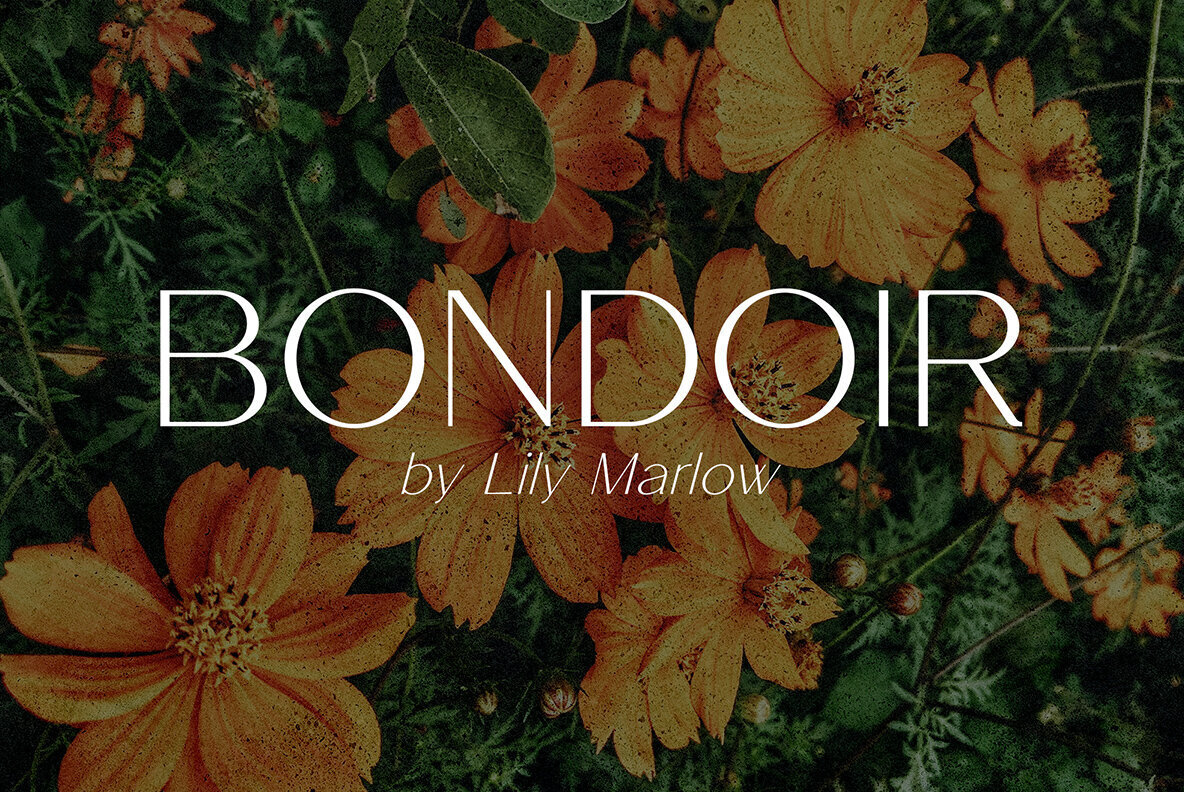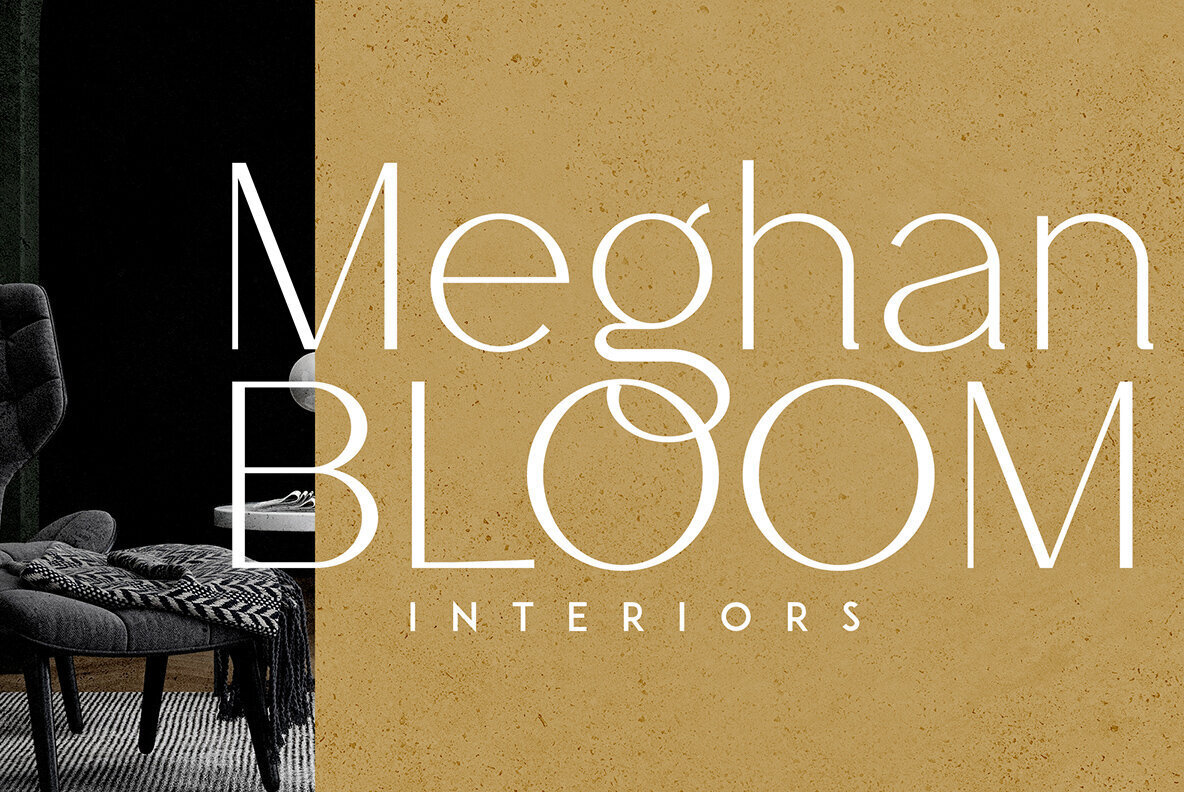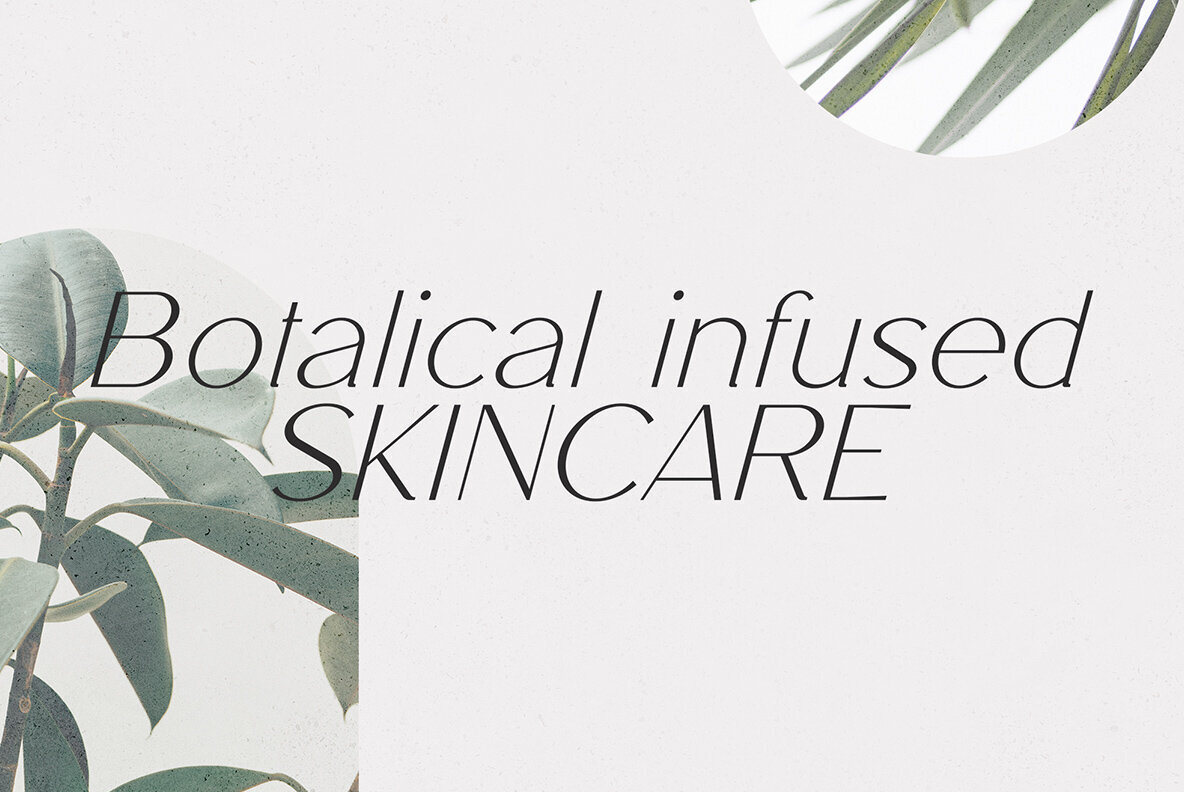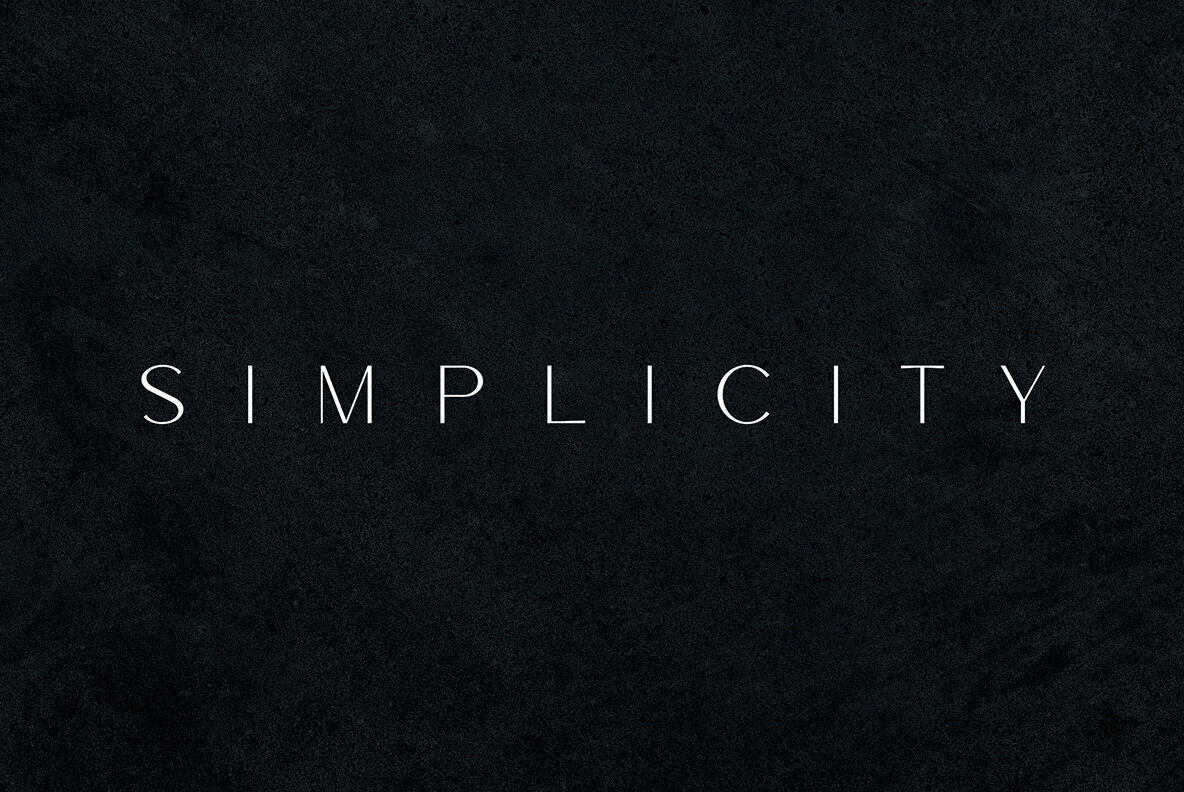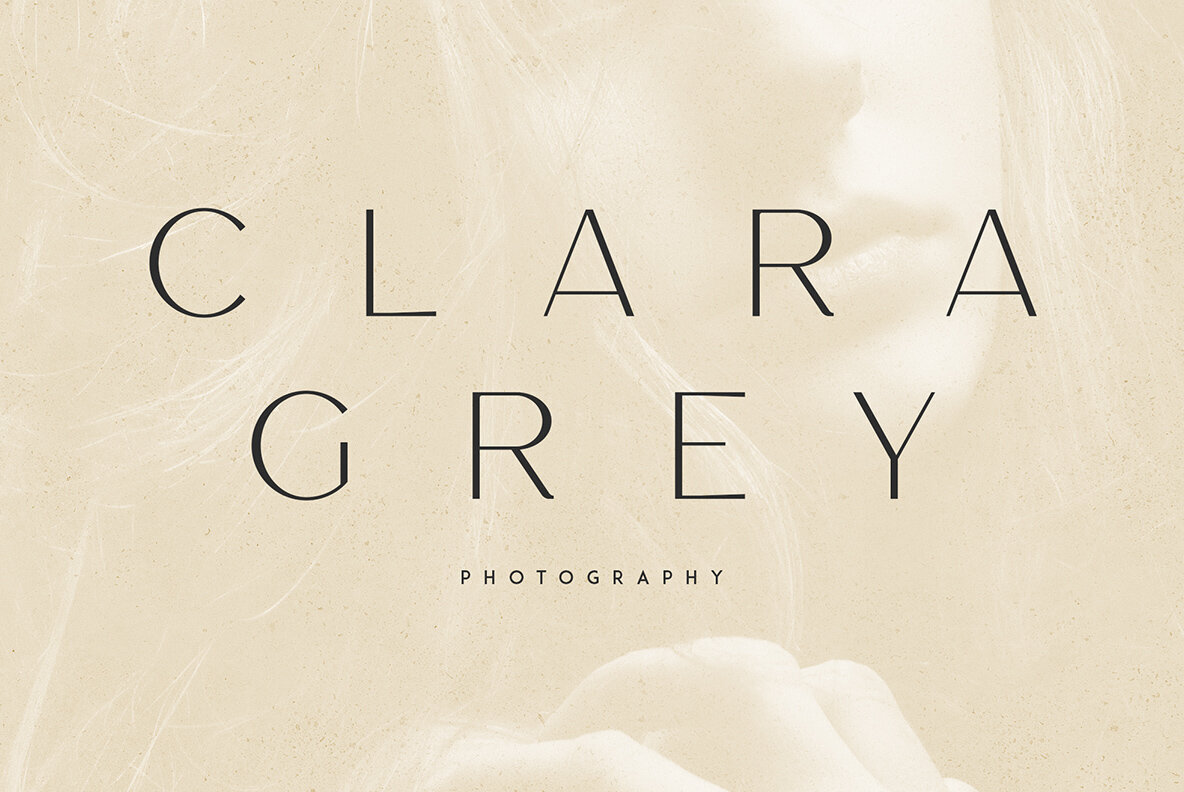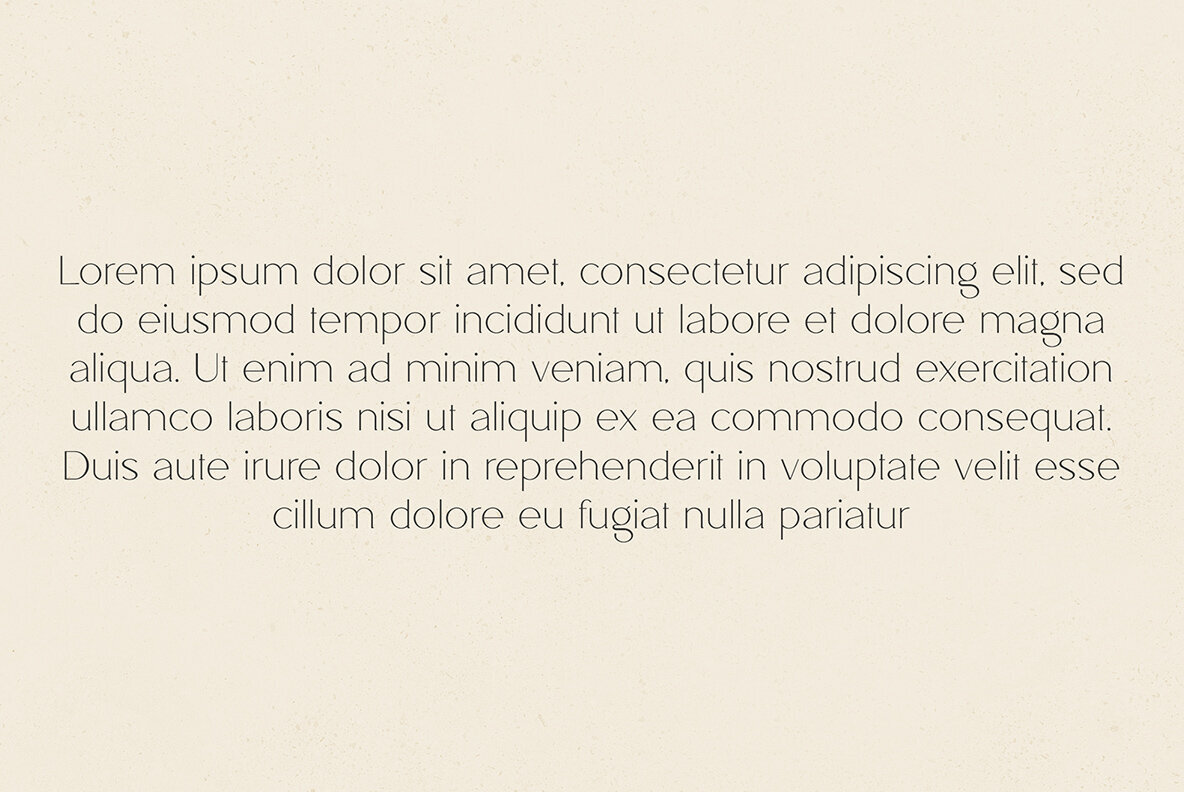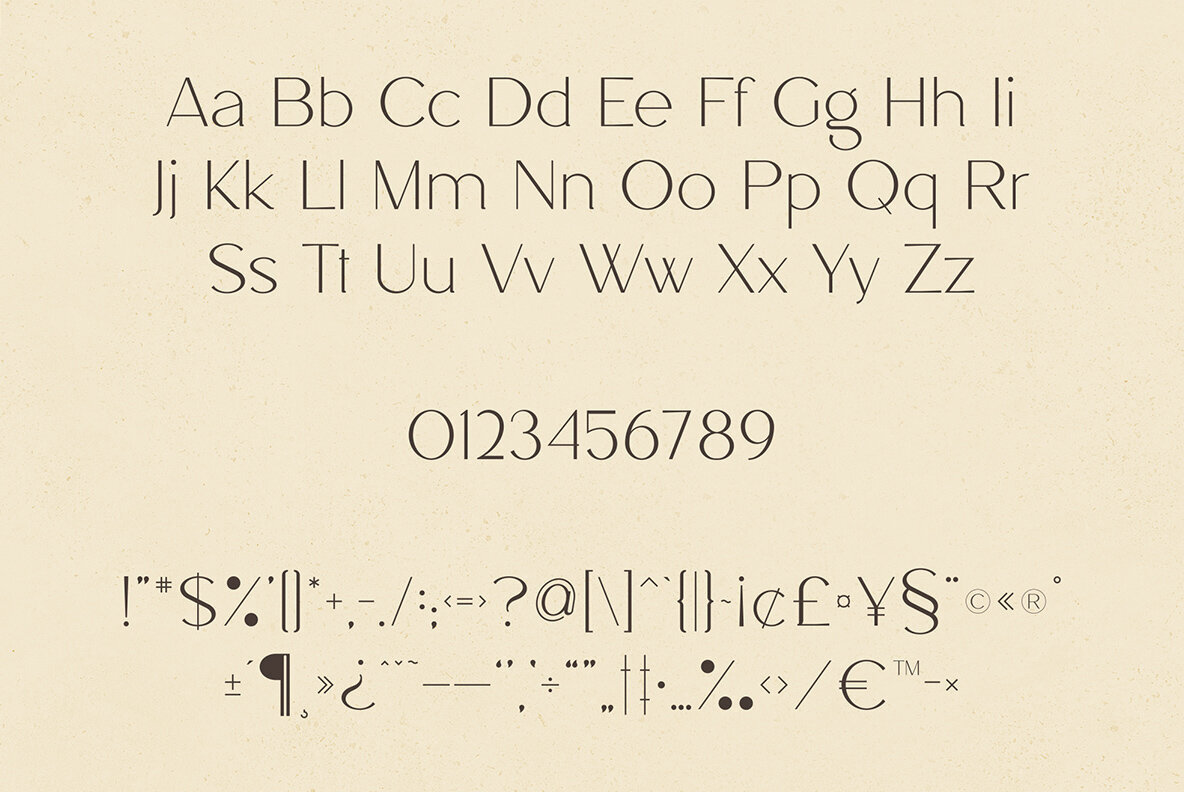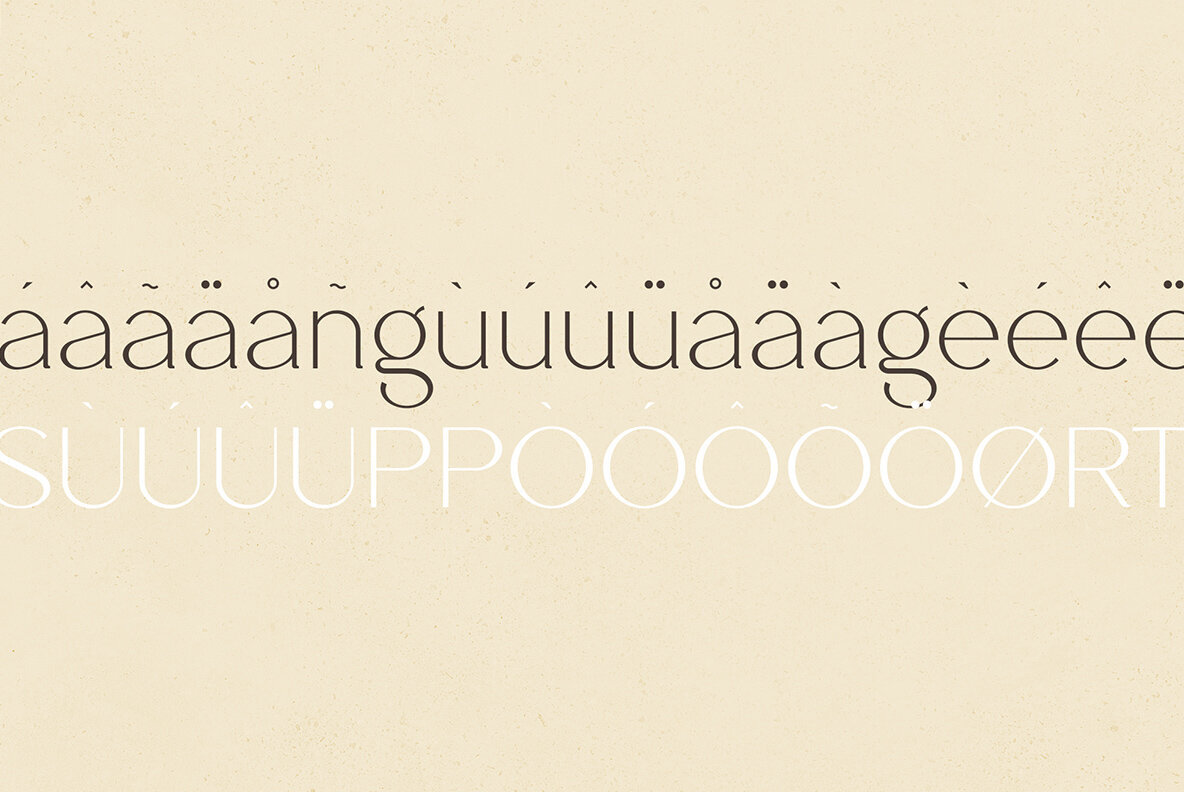
Bereft Font
The Bereft typeface by VP Creative Shop offers a sophisticated and expansive display, complete with multilingual capabilities. Its versatility makes it suitable for a wide range of applications, whether prominently featured or subtly integrated. Bereft's design renders it ideal for branding projects, product packaging, home-ware designs, magazine headers, and as a stylish text overlay on various backgrounds.Bereft: An Elegant Display Typeface